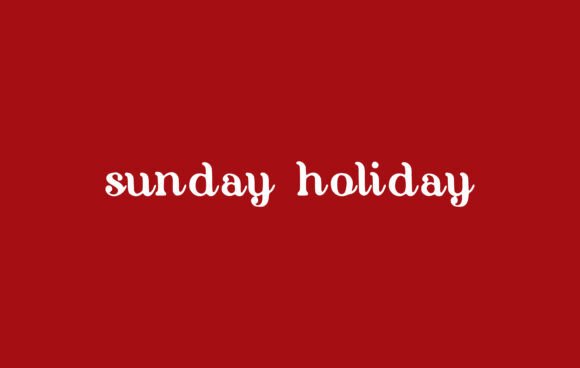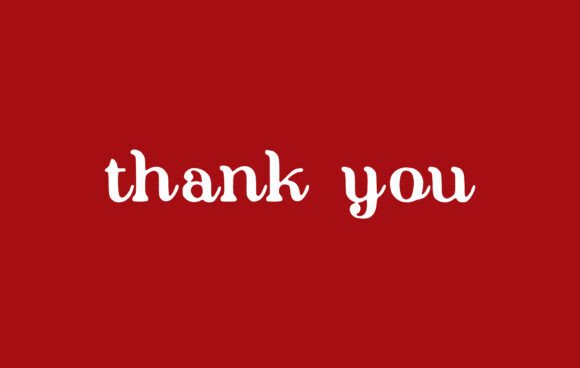
Introducing Declan Font: The Ultimate Handwritten Font for Creative Expression
In the world of typography, a good font can make all the difference in elevating your creative project from ordinary to extraordinary. For designers and crafters looking for a unique and authentic handwritten font with a romantic touch, look no further than Declan Font. This beautifully designed font is expertly crafted to capture the hearts of creatives and take their ideas to new heights.
The Charm of Declan Font
Declan Font boasts a distinctive, hand-written style that exudes warmth and personality. Its authentic feel makes it perfect for a wide range of creative projects, from magazine headlines and social media graphics to branding, wedding invitations, and greeting cards. The font’s romantic touch adds a touch of elegance and sophistication, making it ideal for projects that require a bit of whimsy and flair.
Legibility and Versatility
One of the standout features of Declan Font is its exceptional legibility. Whether used as a title or body text, this font is easy to read and understand, making it perfect for a variety of applications. Its versatility is another major advantage, allowing designers and crafters to use it in multiple contexts without worrying about it looking out of place.
Declan Font is a dream come true for designers and crafters looking for a font that can help them create stunning visual content. Here are just a few examples of the many creative projects where this font shines:
- Magazine Headlines: Add a touch of sophistication and glamour to your magazine headlines with Declan Font.
- Social Media Graphics: Create eye-catching social media graphics that stand out from the crowd with this unique font.
- Branding: Use Declan Font to create a cohesive brand identity that exudes warmth and personality.
- Wedding Invitations: Add a romantic touch to your wedding invitations and save-the-date cards with this beautiful font.
- Greeting Cards: Create heartfelt greeting cards that showcase your creativity and thoughtfulness.
Why Choose Declan Font?
With so many fonts available, why choose Declan Font? Here are just a few reasons why this font stands out from the rest:
- Unique and Authentic: Declan Font is a one-of-a-kind font that adds a touch of personality to any project.
- Highly Legible: This font is easy to read and understand, making it perfect for a wide range of applications.
- Versatile: Use Declan Font in multiple contexts without worrying about it looking out of place.
- Romantic Touch: Add a touch of elegance and sophistication to your projects with this beautiful font.
Get Creative with Declan Font
In conclusion, Declan Font is a must-have for designers and crafters looking for a high-quality, handwritten font with a romantic touch. Its exceptional legibility, versatility, and unique charm make it perfect for a wide range of creative projects. Whether you’re working on a magazine headline, social media graphic, or wedding invitation, Declan Font is the perfect choice for adding a touch of personality and elegance to your design.